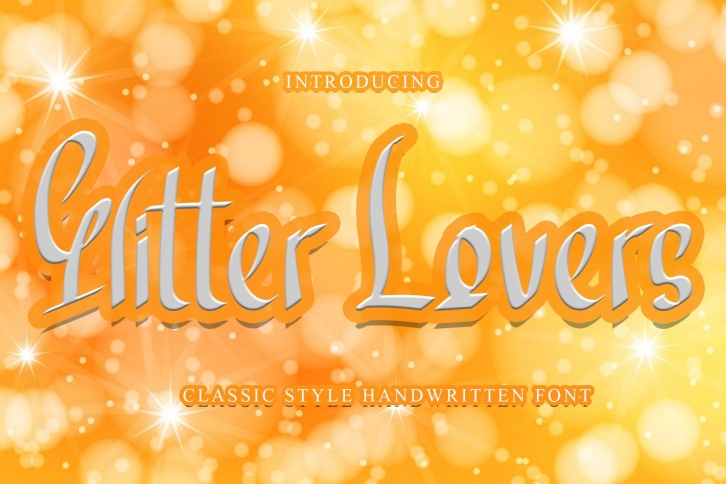
Glitter Lovers is a trendy and unique font with an authentic style. It was designed by Giart Studios and it's a great choice for creative people who need such a font. It was released on June 30, 2021 and the file size is 5.31 MB. Glitter Lovers will add an organic vibe to any design idea!